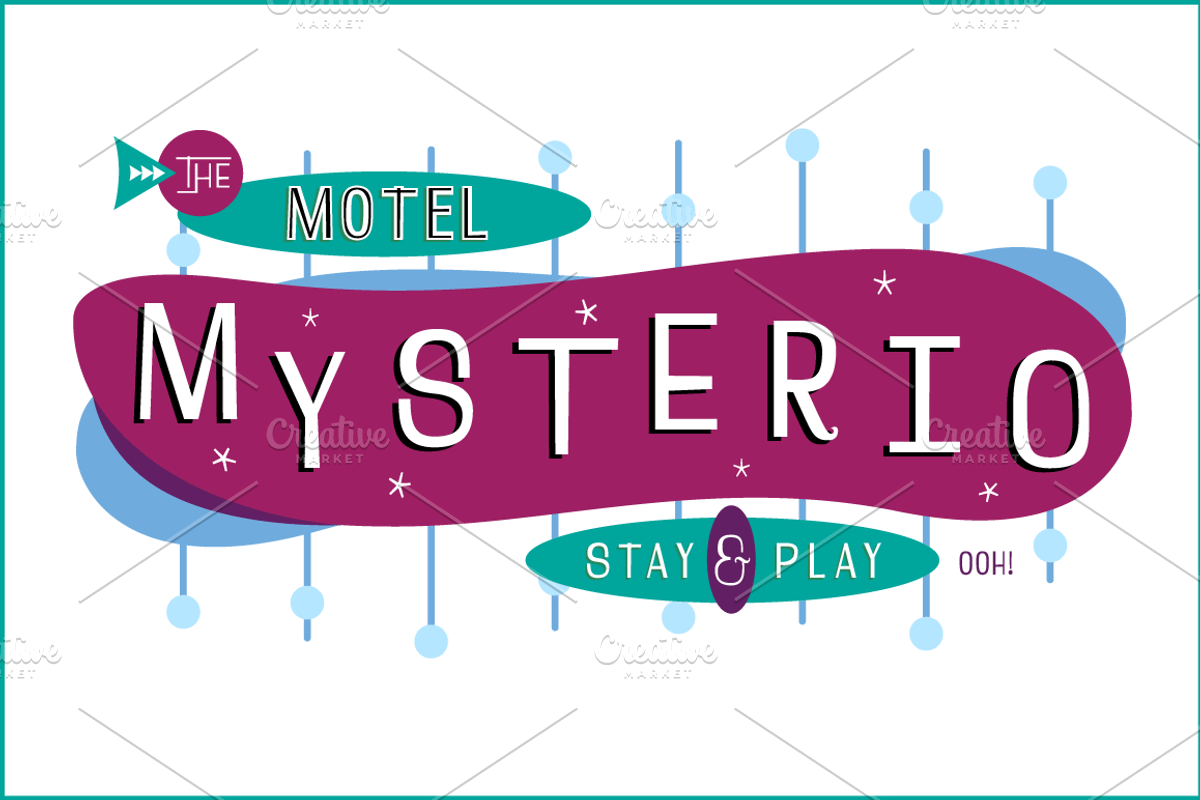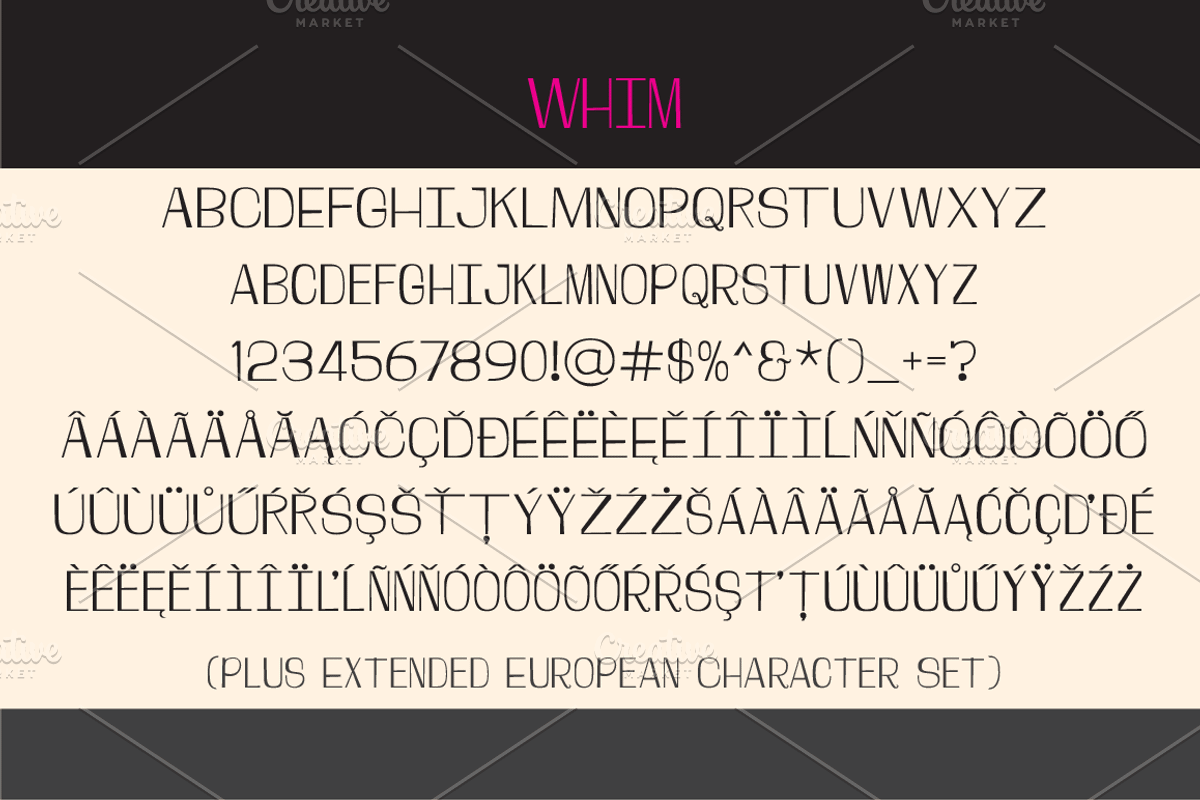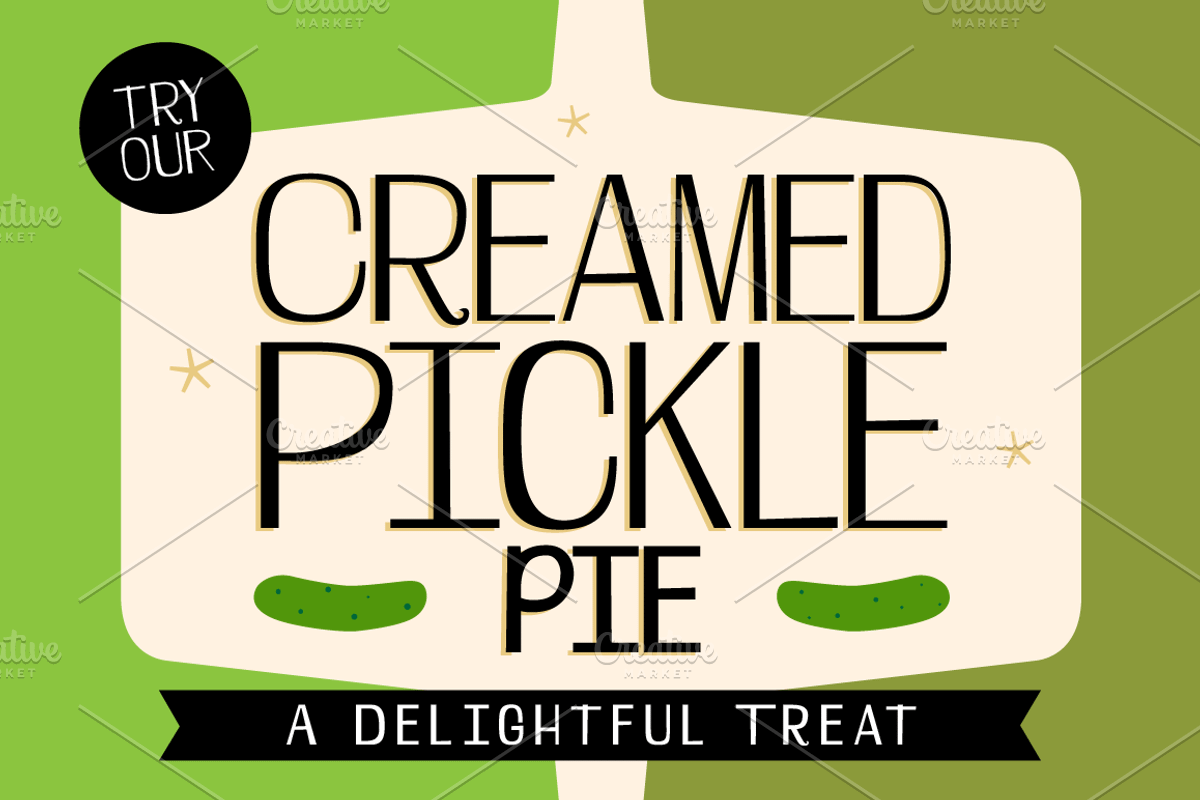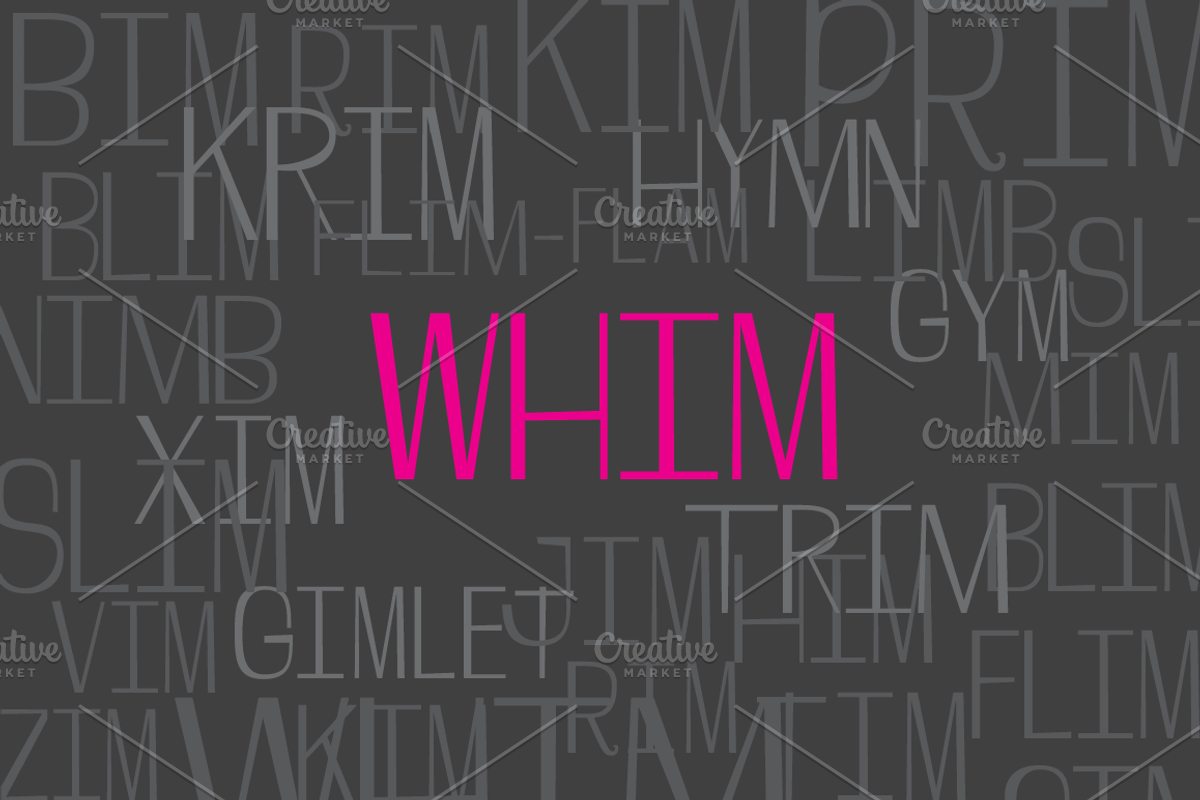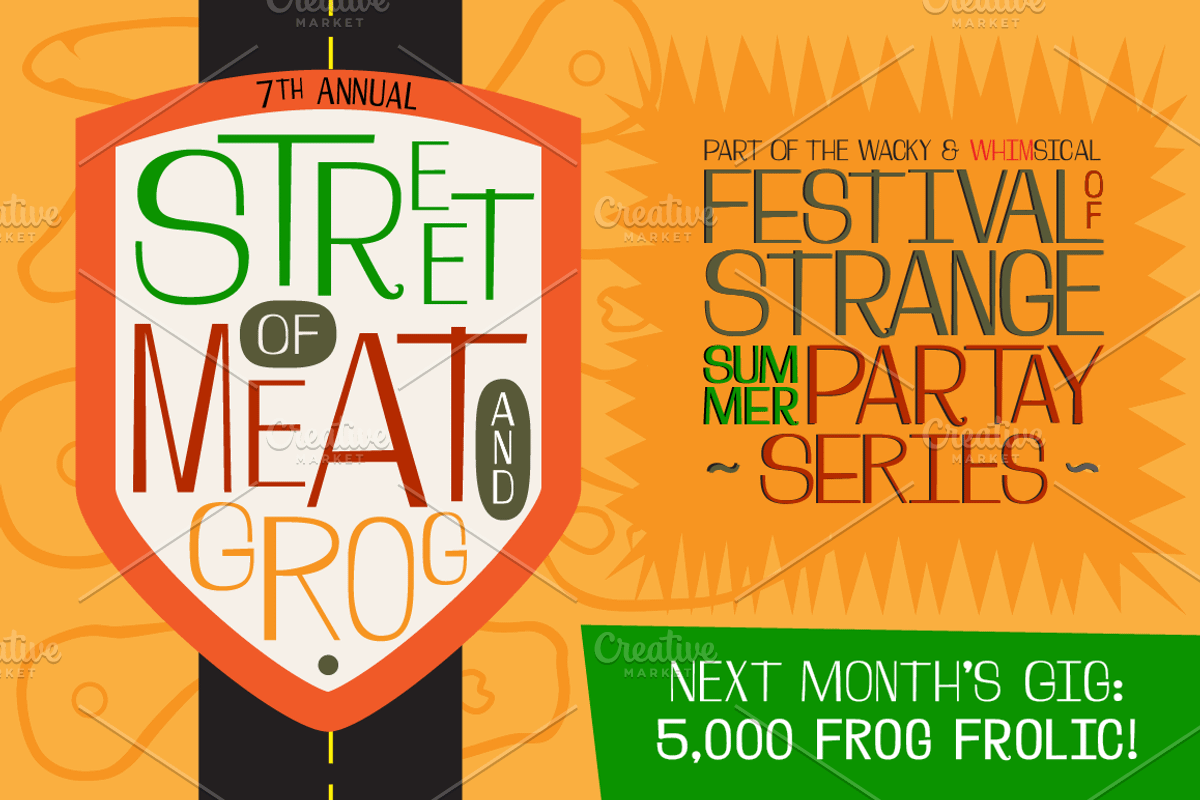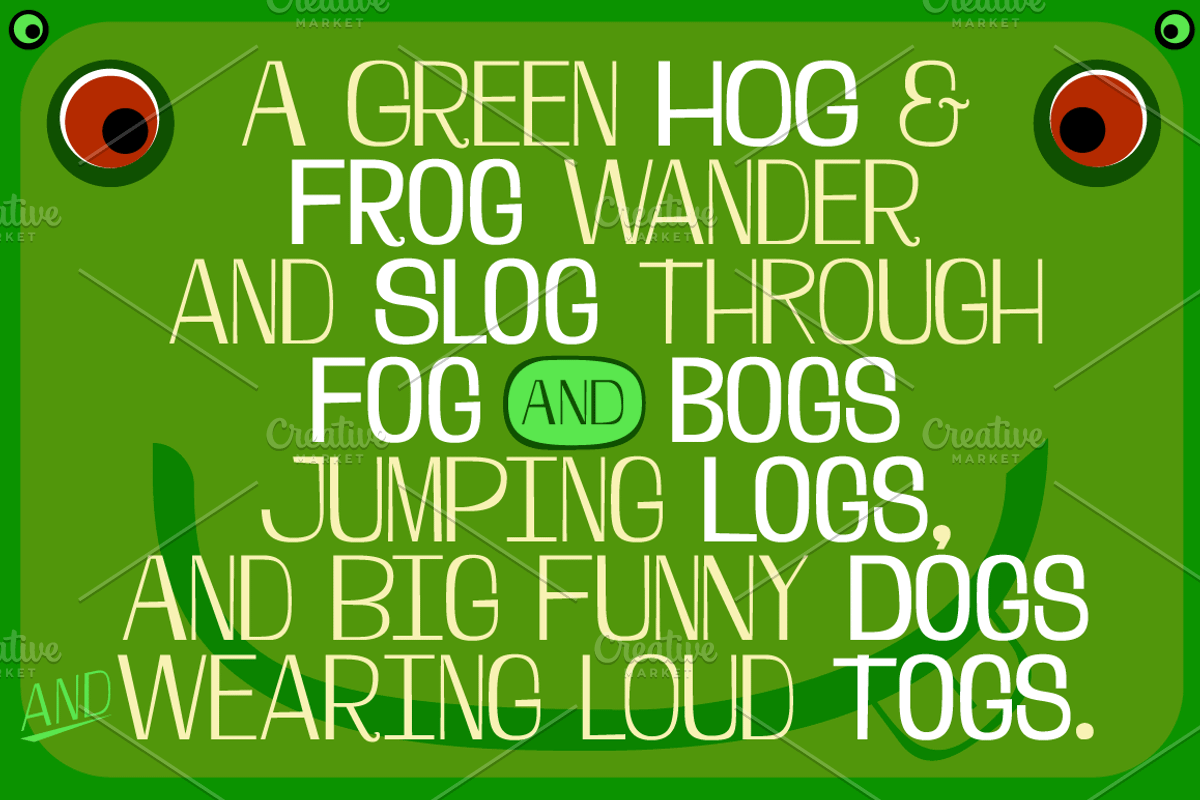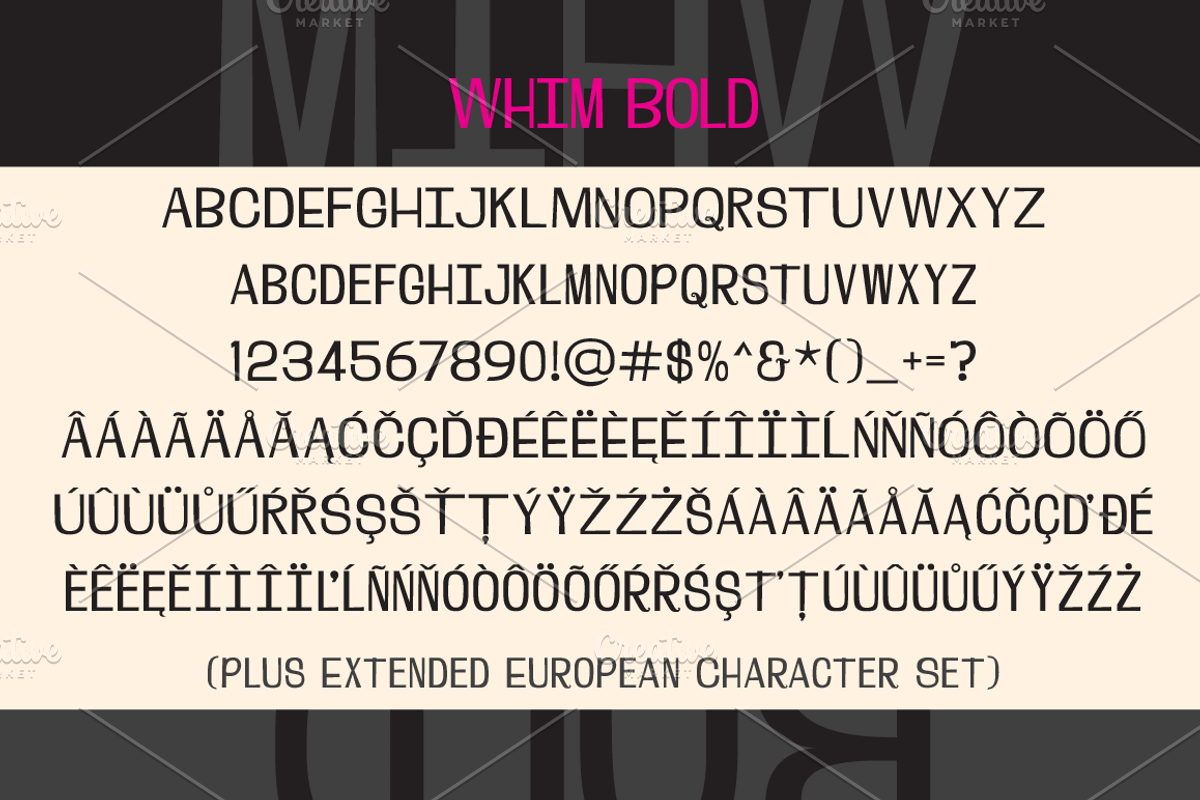
Whim Font Family
Whim Font Family by Typekirk is a font selected for branding, posters, packaging, typography.
- For loose and whimsical use, Whim's upper- and lower-case positions feature two sets of fully interchangeable characters, with the the lower
Why Whim Font Family is worth a look
Whim Font Family by Typekirk fits naturally into Branding, posters, packaging, typography.